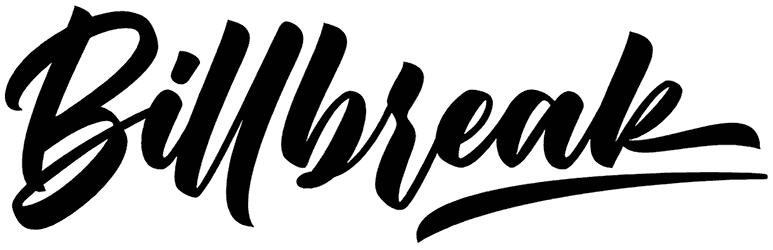
Billbreak Font
Billbreak fits the bill if you are searching for a script font for your text layout. This case is coming in flowing and semi-bold characters and will add an artistic touch to your design. It can be a great pickup for branding, signs, logos, and many more. Just give it a try and see how it goes!